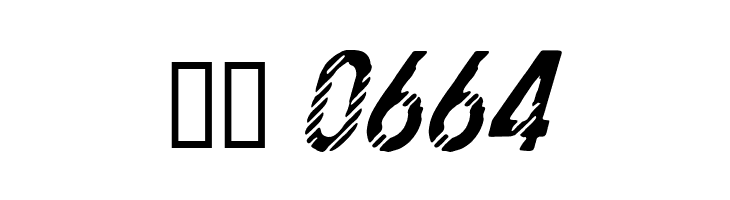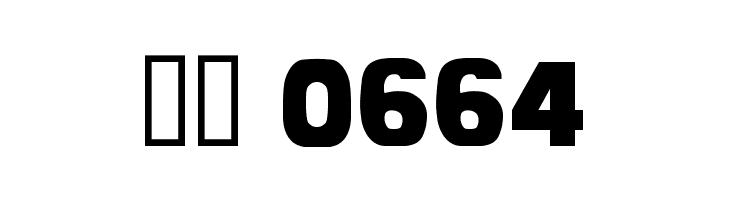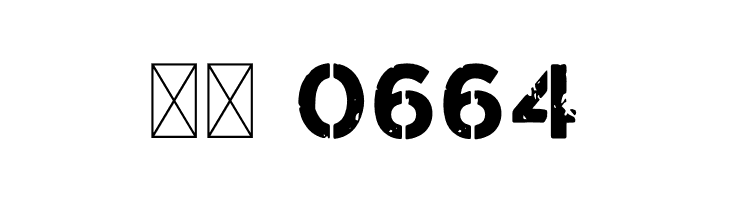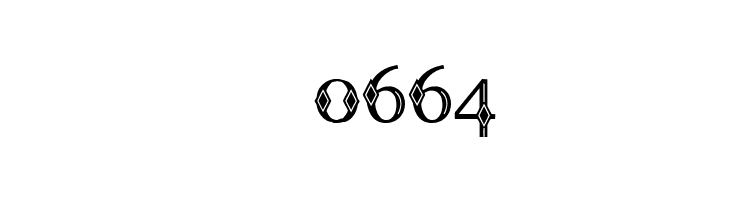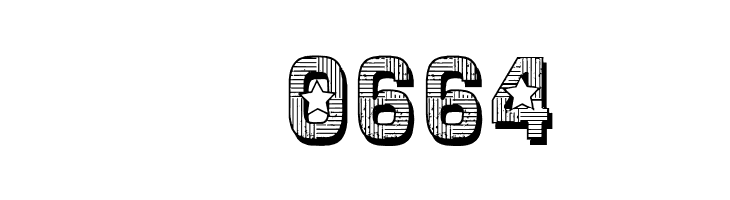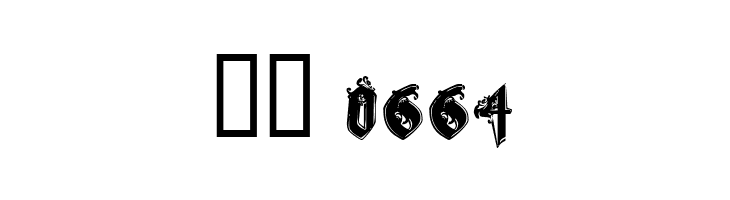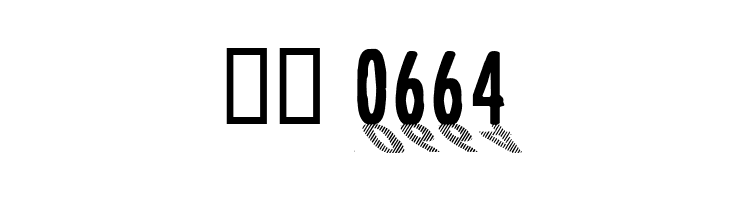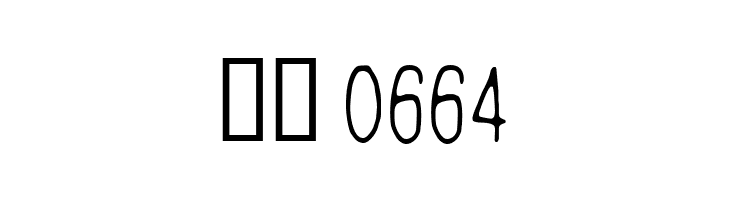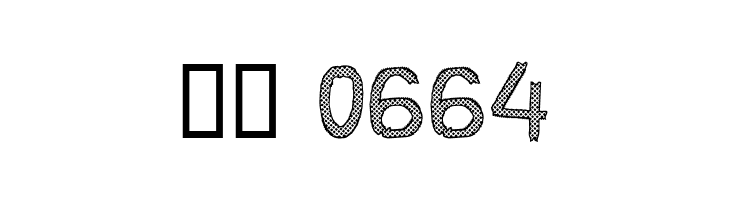
A modern, narrow font with a sleek and elegant design.
A decorative font with uppercase letters designed to resemble pencils.
A playful, hand-drawn font with a crayon-like texture.
A bold, decorative font with textured lines and star accents.
An ornate and decorative font with intricate patterns within each character.
A bold, dynamic font with diagonal stripe patterns, ideal for impactful designs.
A decorative serif font with diamond-shaped cutouts, combining elegance and creativity.
A hand-drawn, casual font with thin, wavy lines and low contrast.
A dot matrix style font with a geometric and digital appearance.
A whimsical, decorative font with branch-like extensions and consistent stroke thickness.
A bold, jagged font with an electronic-inspired design, perfect for futuristic themes.
A bold, engraved font with a three-dimensional, textured appearance.
A textured, fabric-inspired font with bold outlines and a handcrafted feel.
A bold, textured script font with a rugged, adventurous style.
A rugged, distressed font with a Wild West aesthetic.
A bold, expressive font with a hand-painted, brush stroke appearance.
An ornate, decorative font with floral embellishments.
A bold, shadowed font with tall, narrow uppercase letters and numbers.
A whimsical and decorative font with playful, curly letterforms.
A whimsical, decorative font with curly serifs and playful character shapes.
A bold, distressed font with a rugged, chaotic appearance.
A playful, hand-drawn style font with bold, rounded strokes.
A bold, textured font with a distressed, ghostly appearance.
A bold, impactful font with thick, uniform strokes for a strong presence.
A bold, decorative Gothic font with intricate detailing and historical elegance.
A bold, distressed font with a rugged, vintage appearance.
A playful, textured font with a dotted pattern and hand-drawn style.
A bold, distressed font with a rugged, grunge-like appearance.